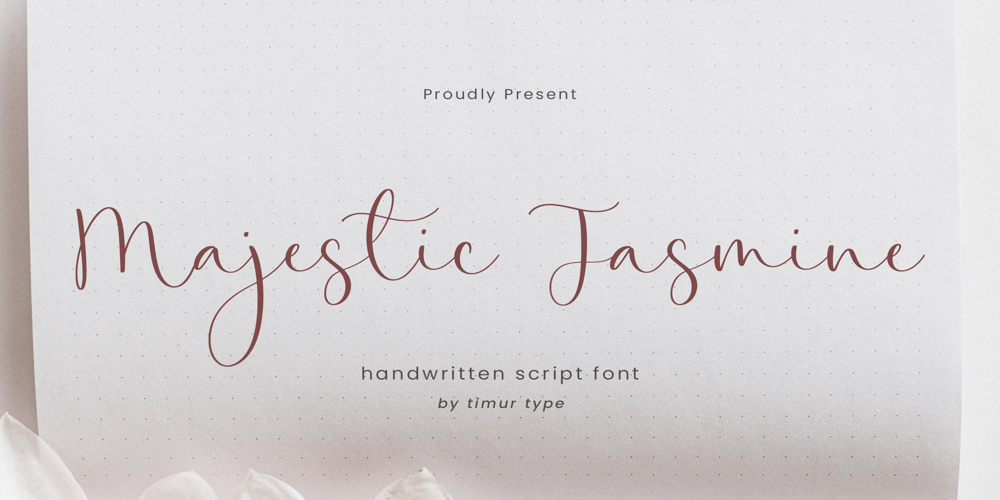
Majestic Jasmine
Majestic Jasmine font
Majestic Jasmine Font Family was designed by Wara Sigit Tri Pamungkas and published by Timurtype. Majestic Jasmine contains 1 styles and family package options. Introducing by Timur typeProudly Present, Majestic Jasmine A Handwritten FontMajestic Jasmine is perfect for product packaging, branding project, megazine, social media, wedding, or just used to express words above the background.Majestic Jasmine also multilingual support.Enjoy the font.Thank you!